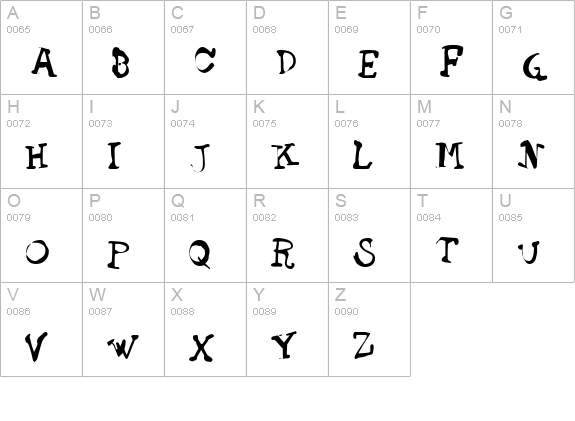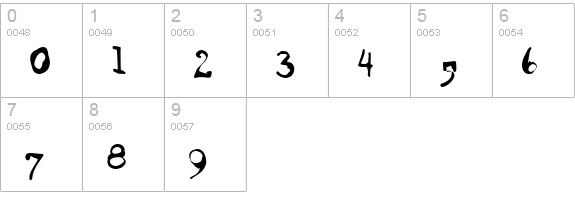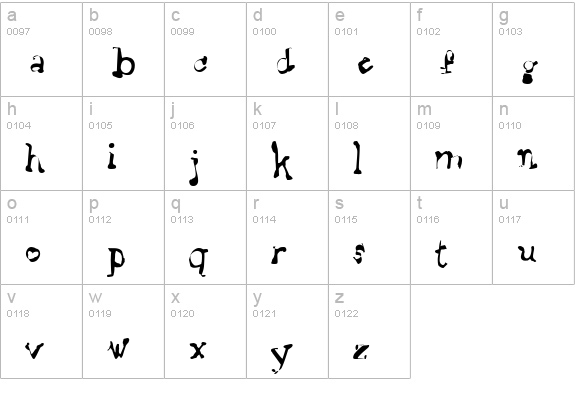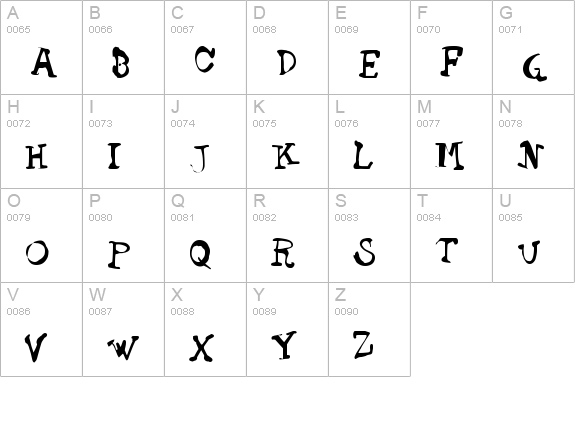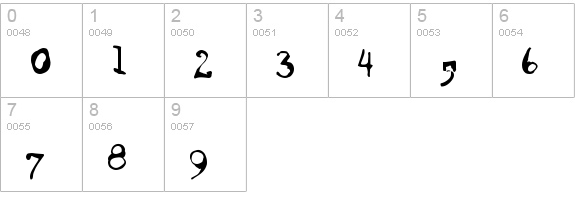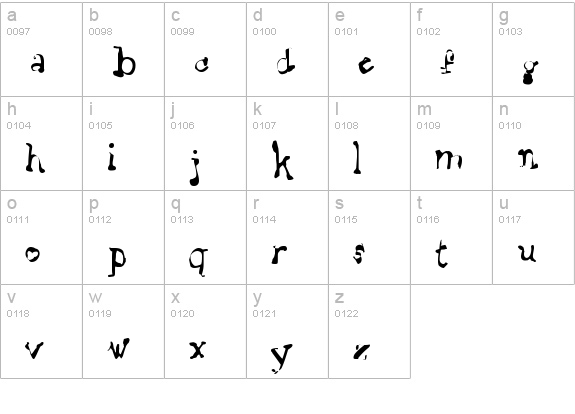
Staggering Bob Font Details
Introducing the mesmerizing Staggering Bob font - a true masterpiece in the world of typography. This unique and captivating typeface is sure to leave a lasting impression on any design project it graces. With its bold and staggering letterforms, Staggering Bob exudes an air of confidence and creativity. Crafted with precision and attention to detail, every curve and stroke of Staggering Bob has been meticulously designed to create a visually stunning and harmonious composition. Its distinctive and unconventional letter shapes make it perfect for adding a touch of originality to any design, whether it be for logos, headlines, posters, or branding materials. But what truly sets Staggering Bob apart is its versatility. It effortlessly transitions from modern and edgy to elegant and refined, making it suitable for a wide range of design styles and themes. Its bold and commanding presence demands attention, while its subtle quirks add an element of surprise and intrigue. The best part? Staggering Bob is available for free! Yes, you read that right. This extraordinary font can be freely downloaded at FontsMarket.com, where it awaits to enhance your creative endeavors. Don't miss out on the opportunity to elevate your design projects with this remarkable typeface. So, whether you're a professional designer looking to make a statement or an enthusiastic hobbyist searching for a font that stands out, Staggering Bob is the perfect choice. Download it for free today and witness the staggering impact it will have on your designs.